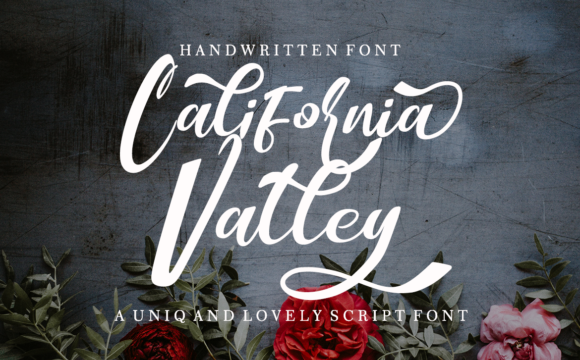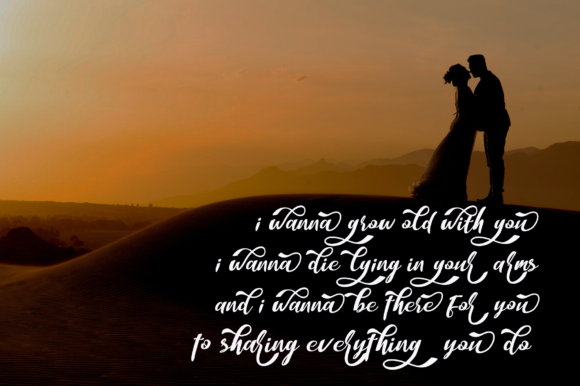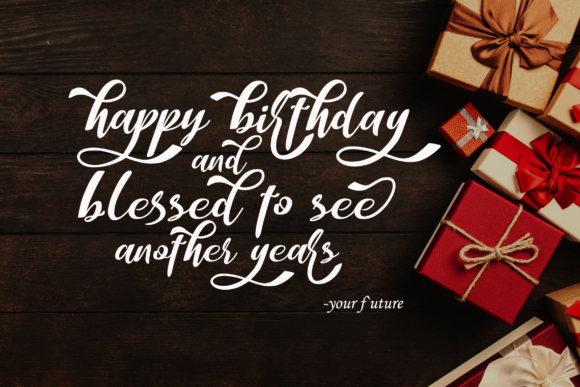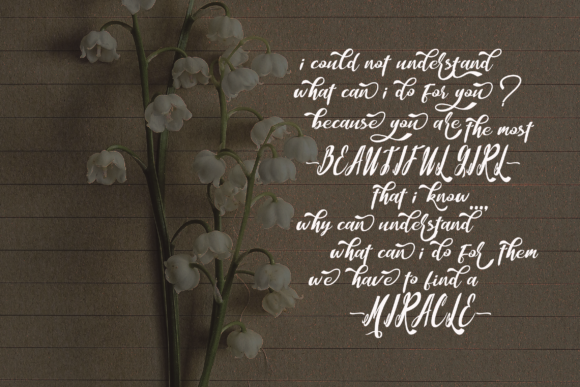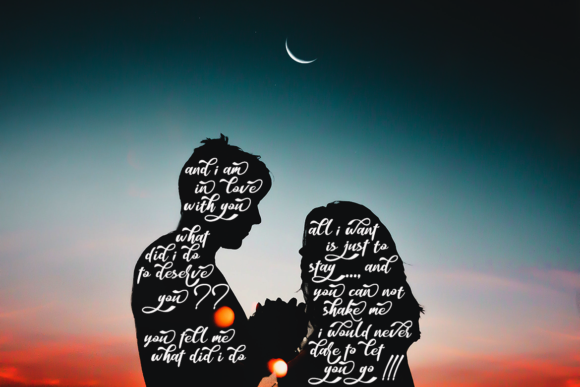
California Valley Font
About California Valley Font
California Valley is a bouncy handwritten font. It features gorgeous swashes and ligatures that make this script incredibly versatile. Whether you’re looking for fonts for Instagram or calligraphy scripts for DIY projects, California Valley
will turn any creative idea into a true piece of art!